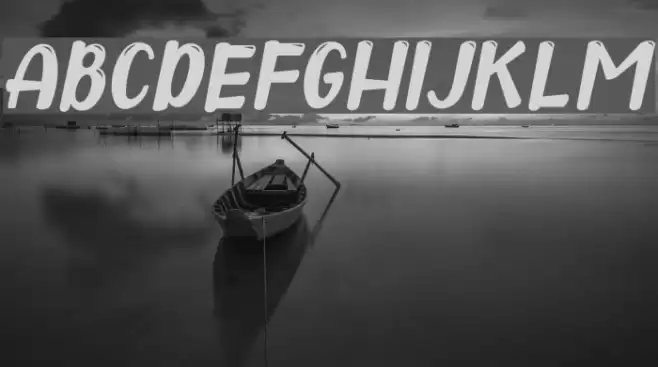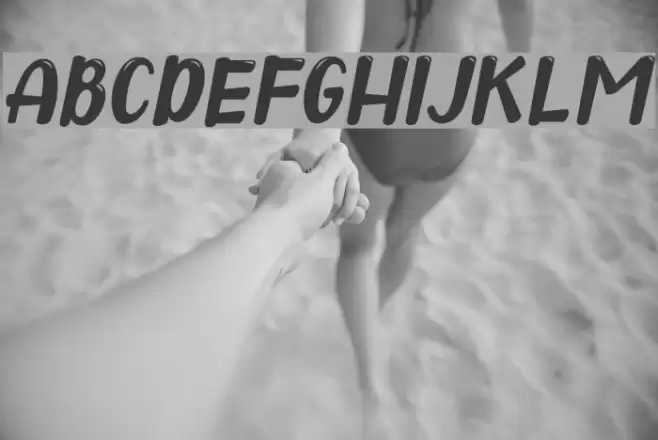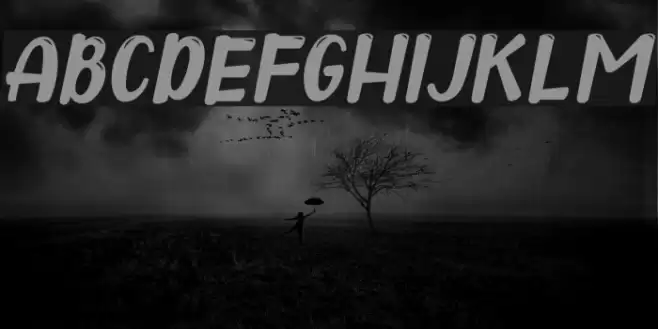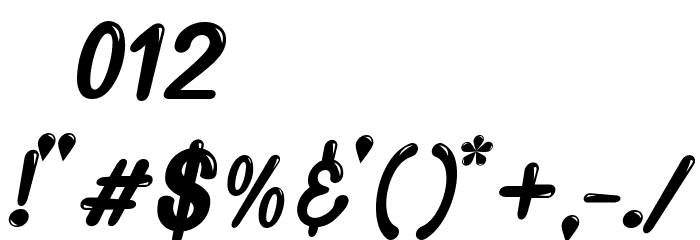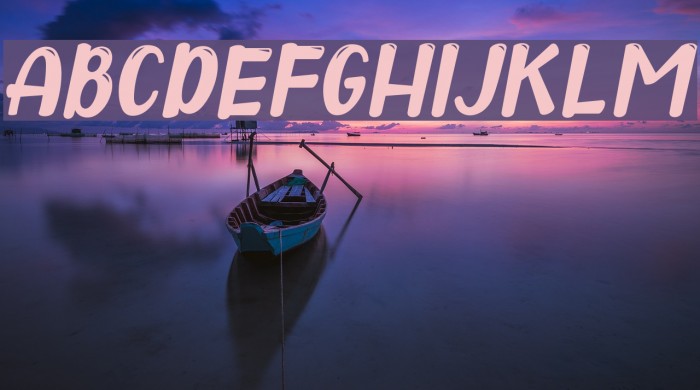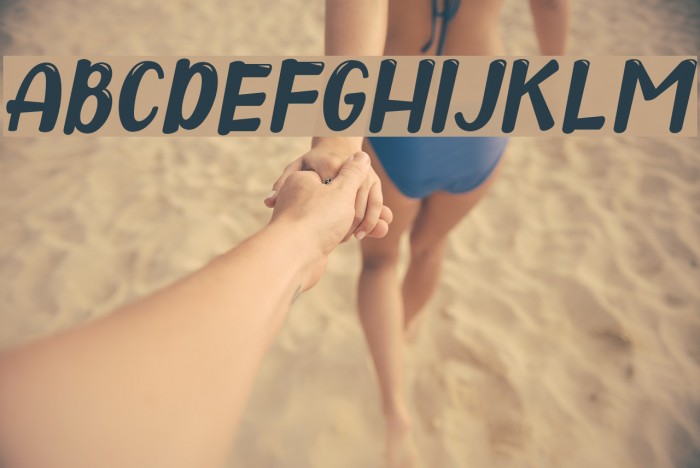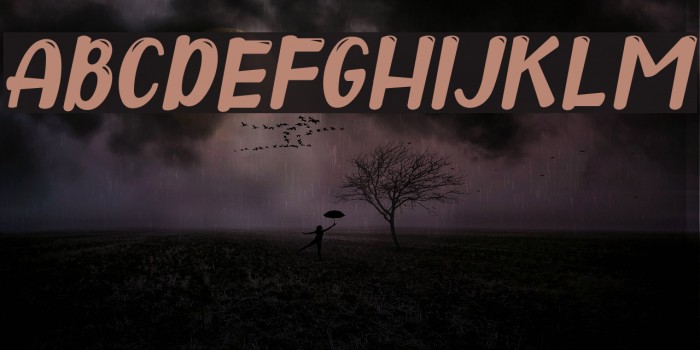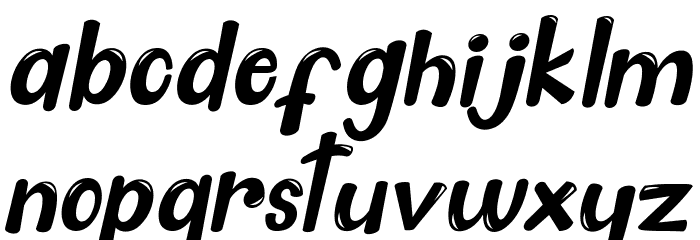
The King - 2 Font
The King - 2 Description
This font features a bold and dynamic script style with a playful and energetic flair. The characters are slightly slanted, giving a sense of movement and fluidity. Each letter is crafted with a thick stroke, enhancing its bold appearance. The uppercase letters maintain a consistent height, while the lowercase letters exhibit a smooth and rounded form. The numbers and special characters are designed to match the overall style, ensuring a cohesive look. The font's unique personality makes it stand out, suitable for projects that require a touch of creativity and boldness.
A bold, dynamic script font with a playful and energetic style from Uncategorized fonts.
- Proposed Projects: Ideal for branding, posters, headlines, and creative design projects that require a bold and lively touch.